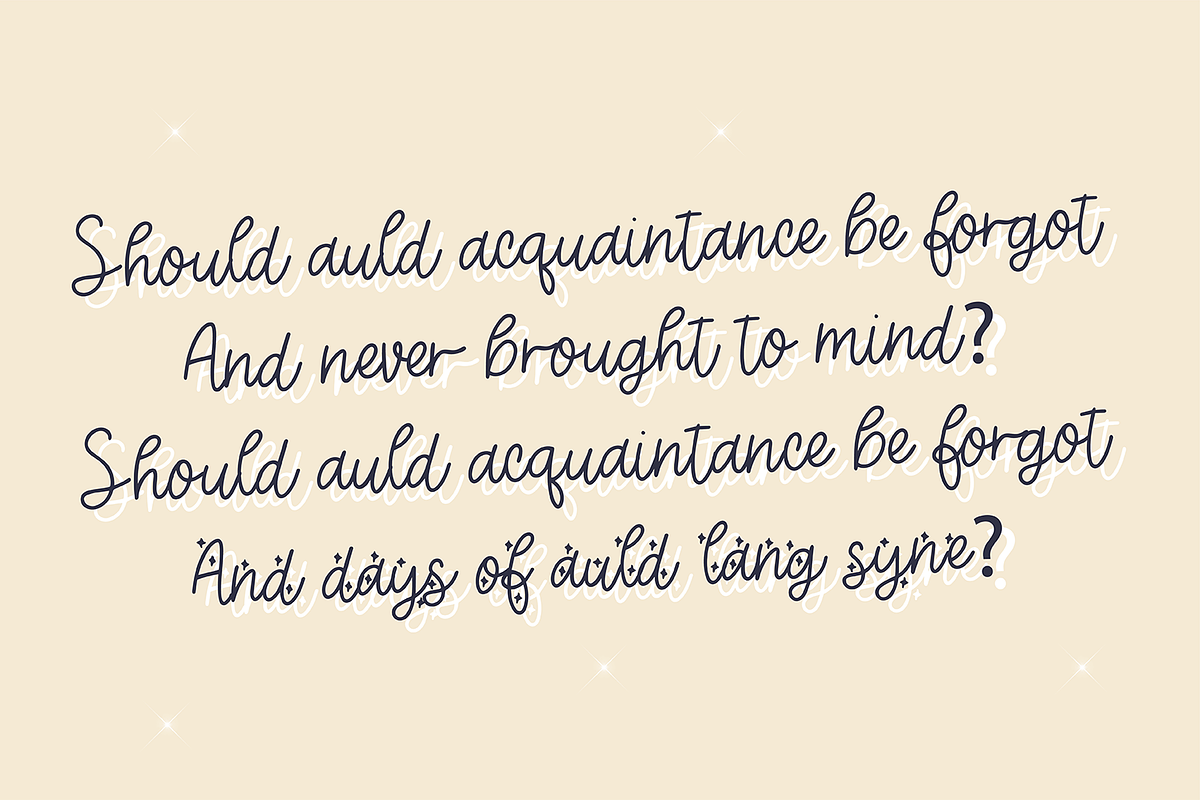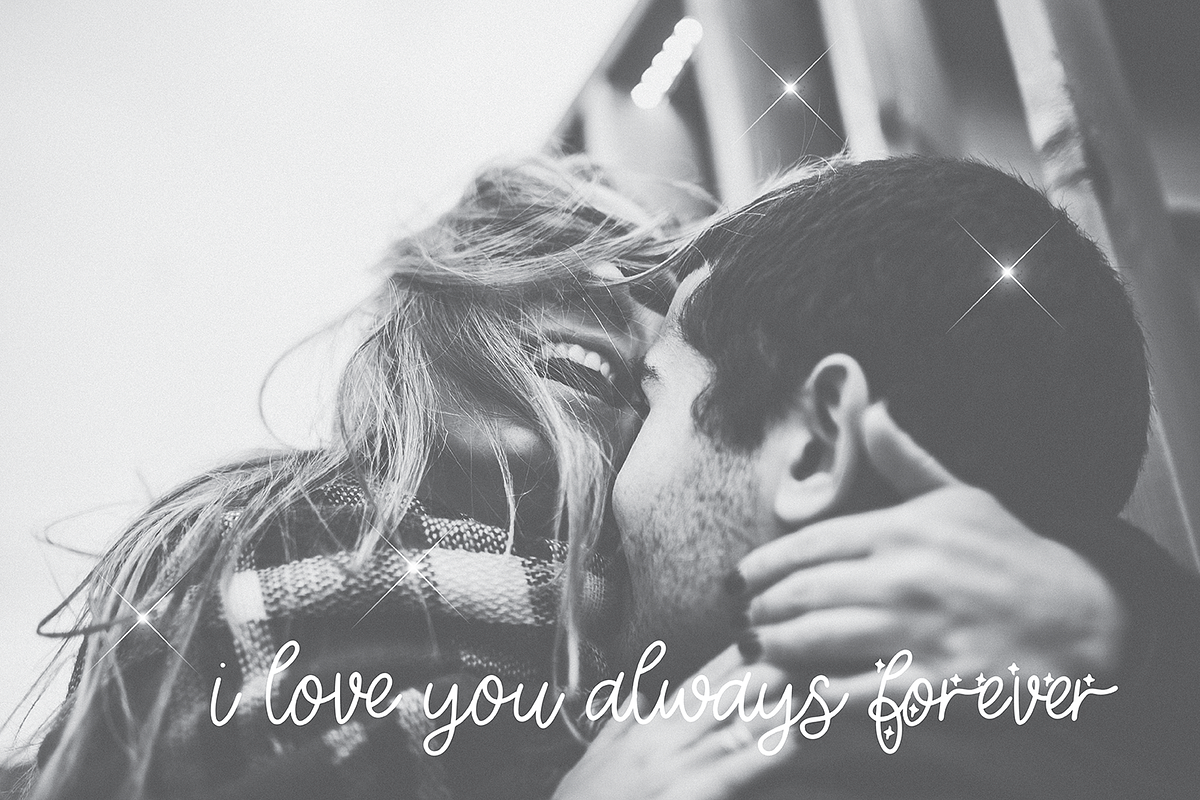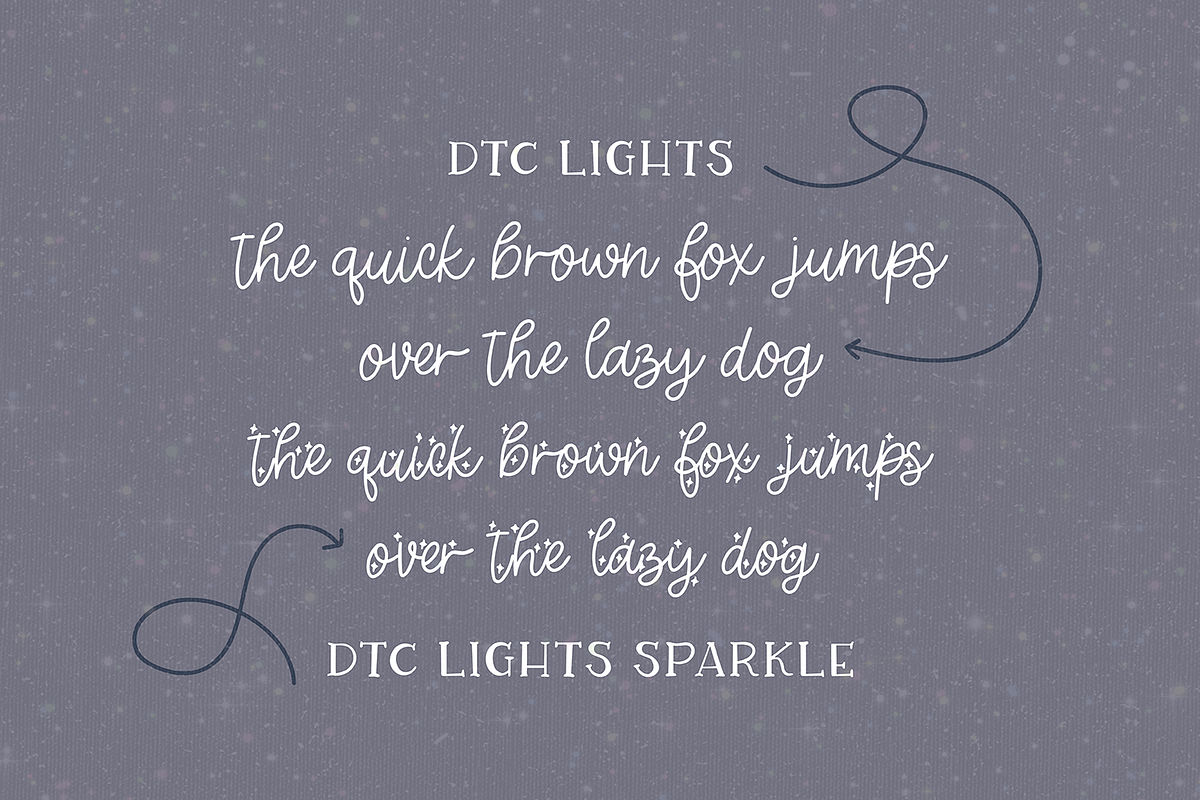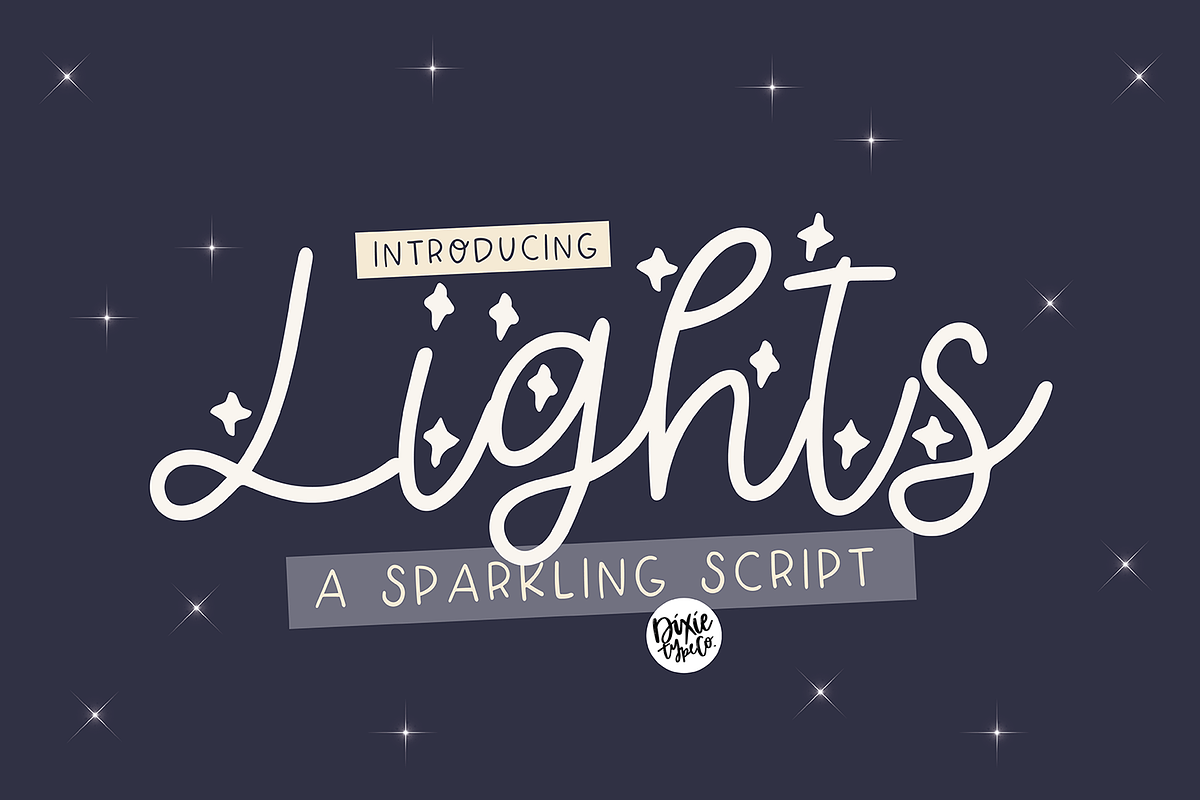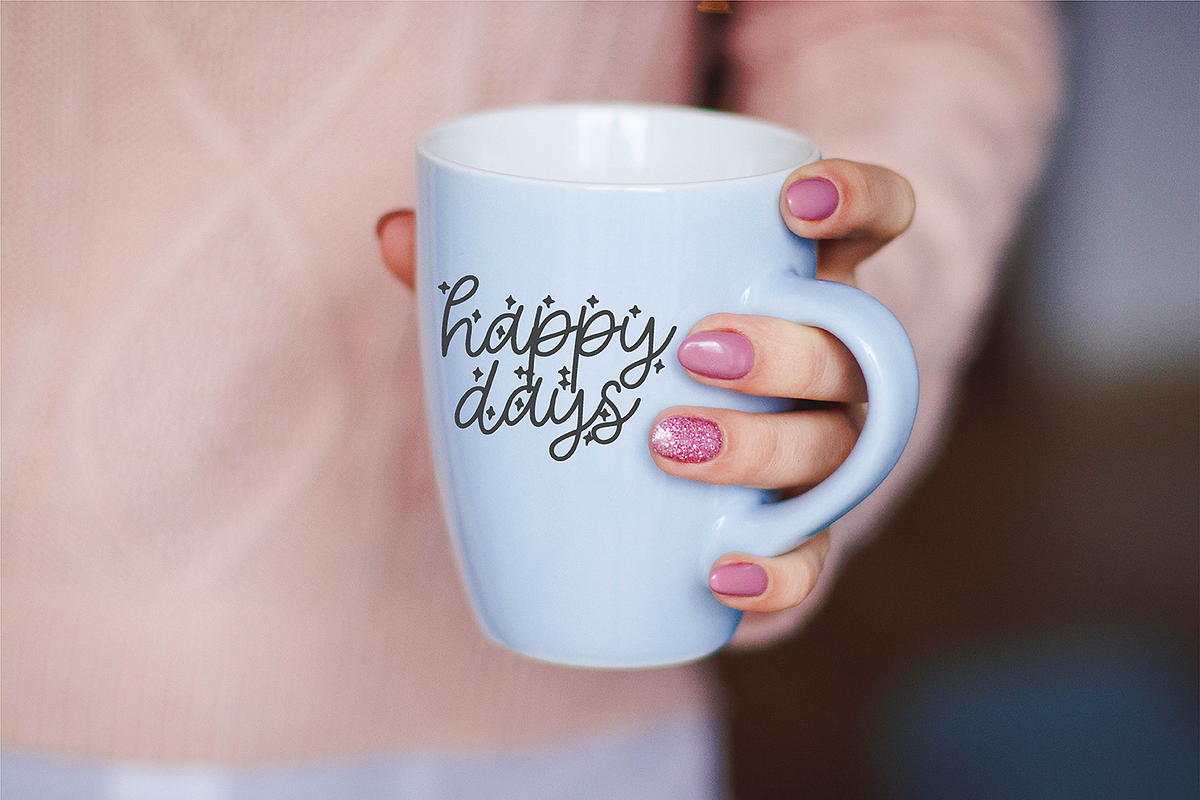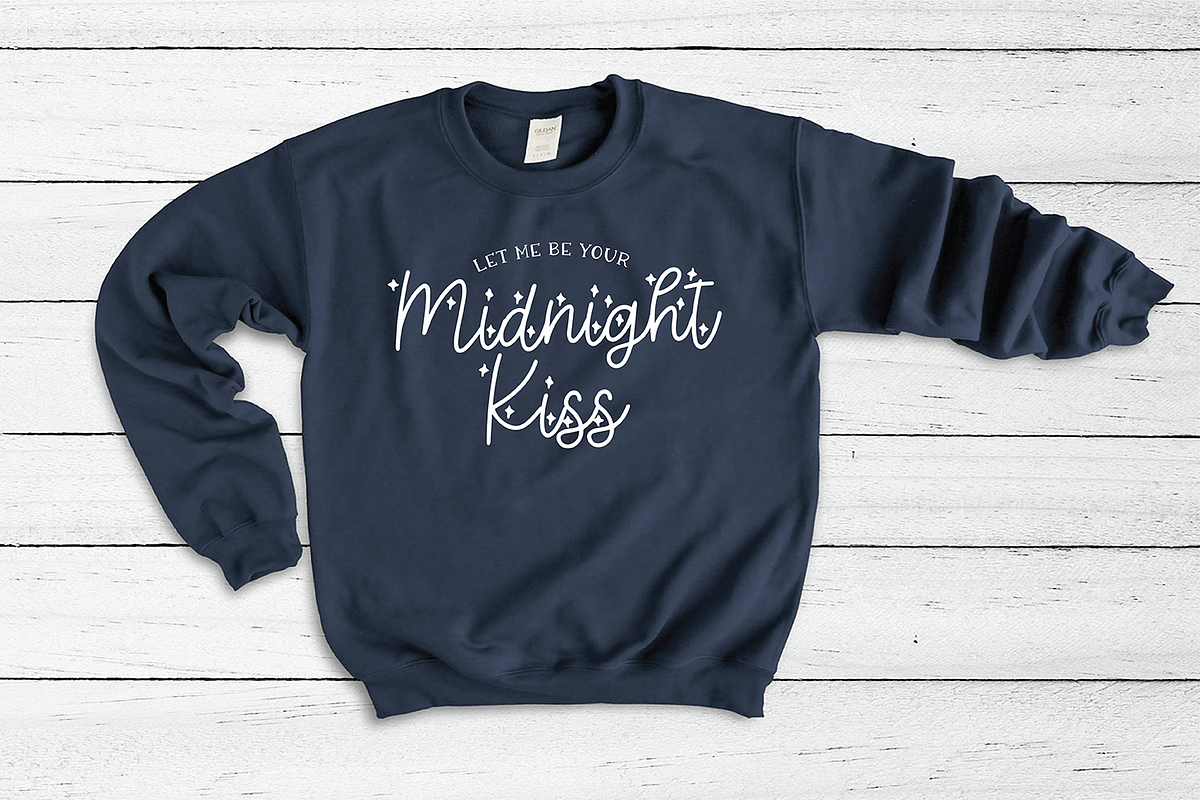
LIGHTS a Sparkling Script
"LIGHTS" a sparkling script font
Lights is a skinny script font with a starred version and a plain version. This font is perfect for birthday parties, New Years, and craft projects.